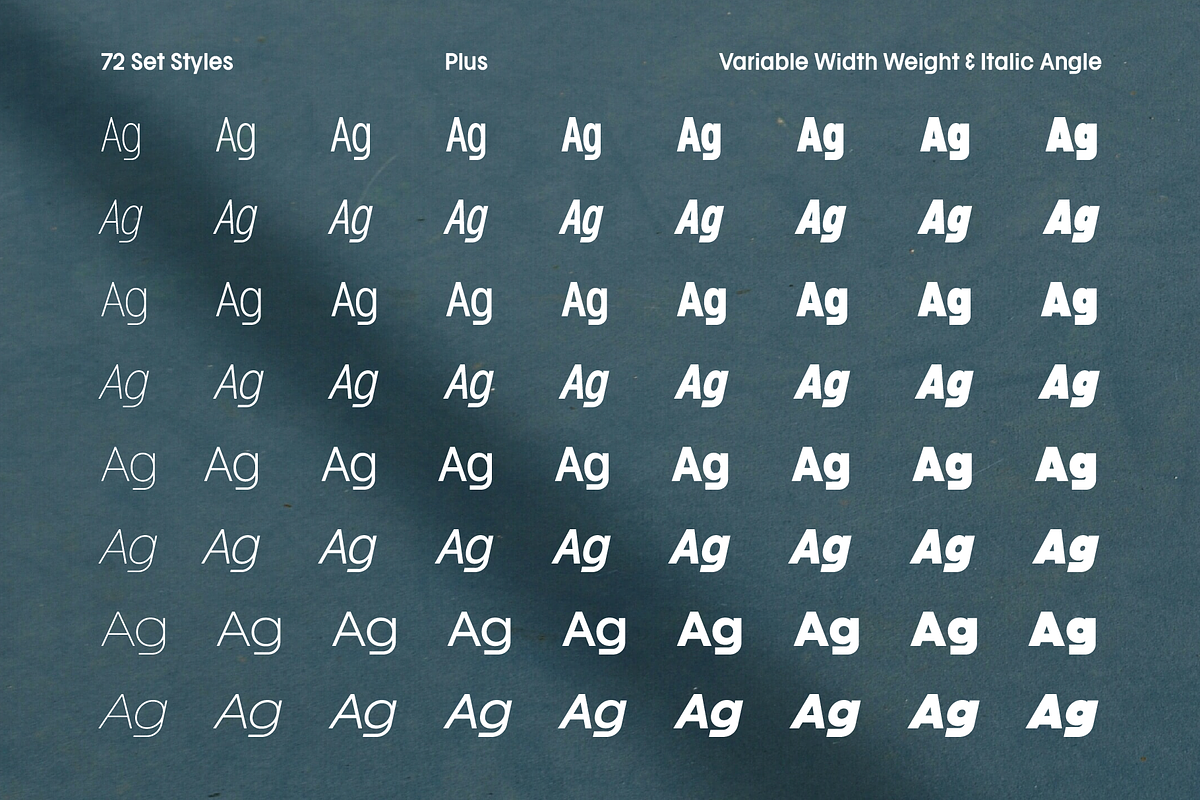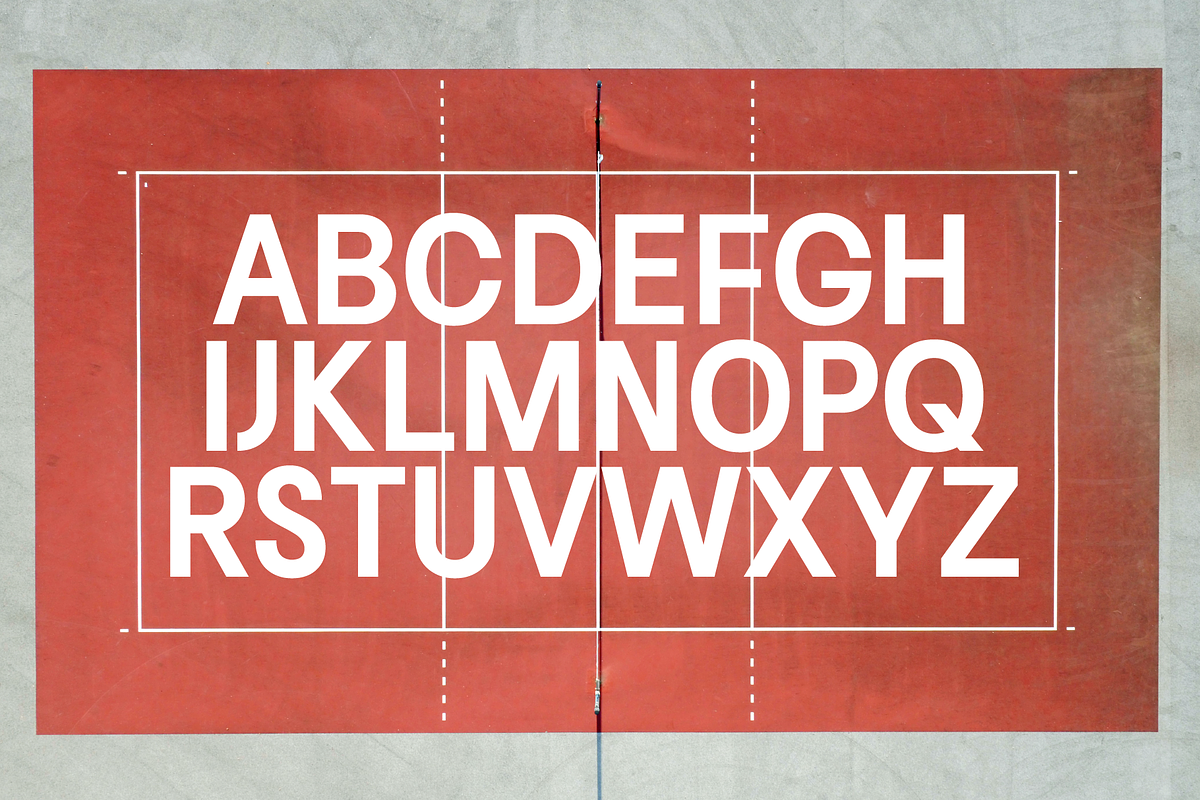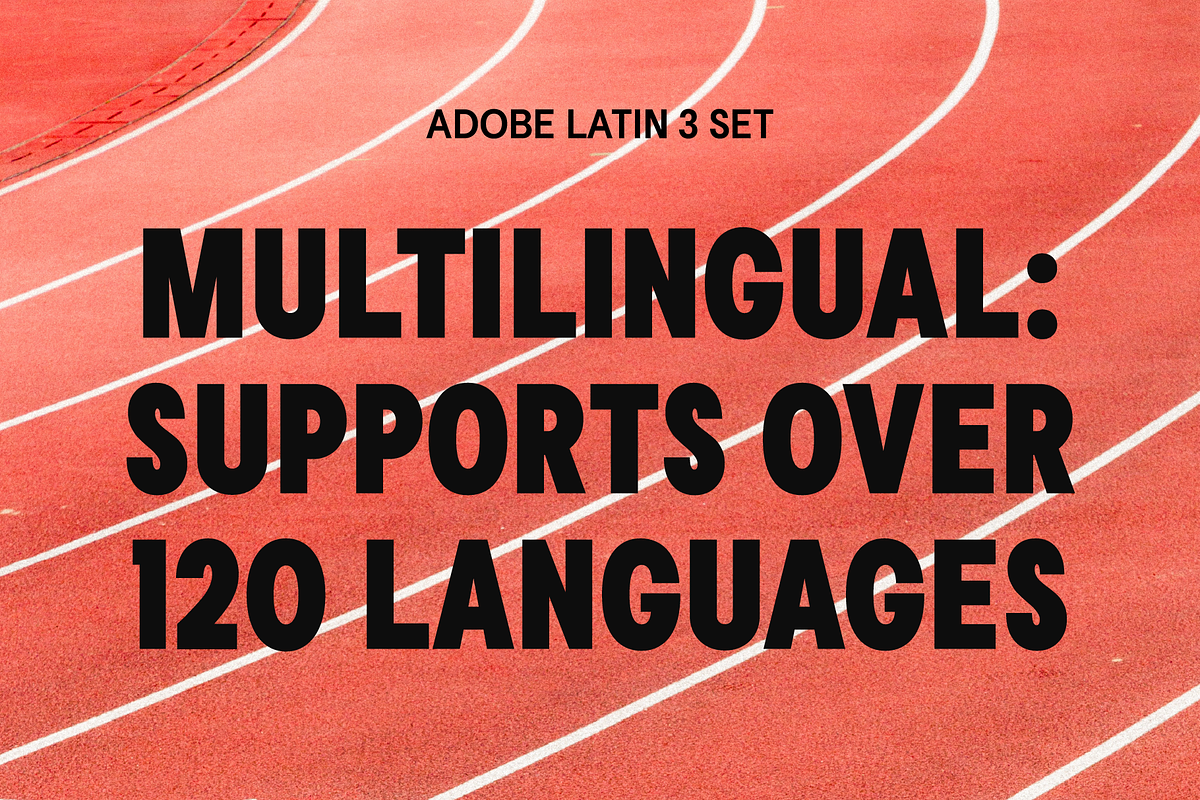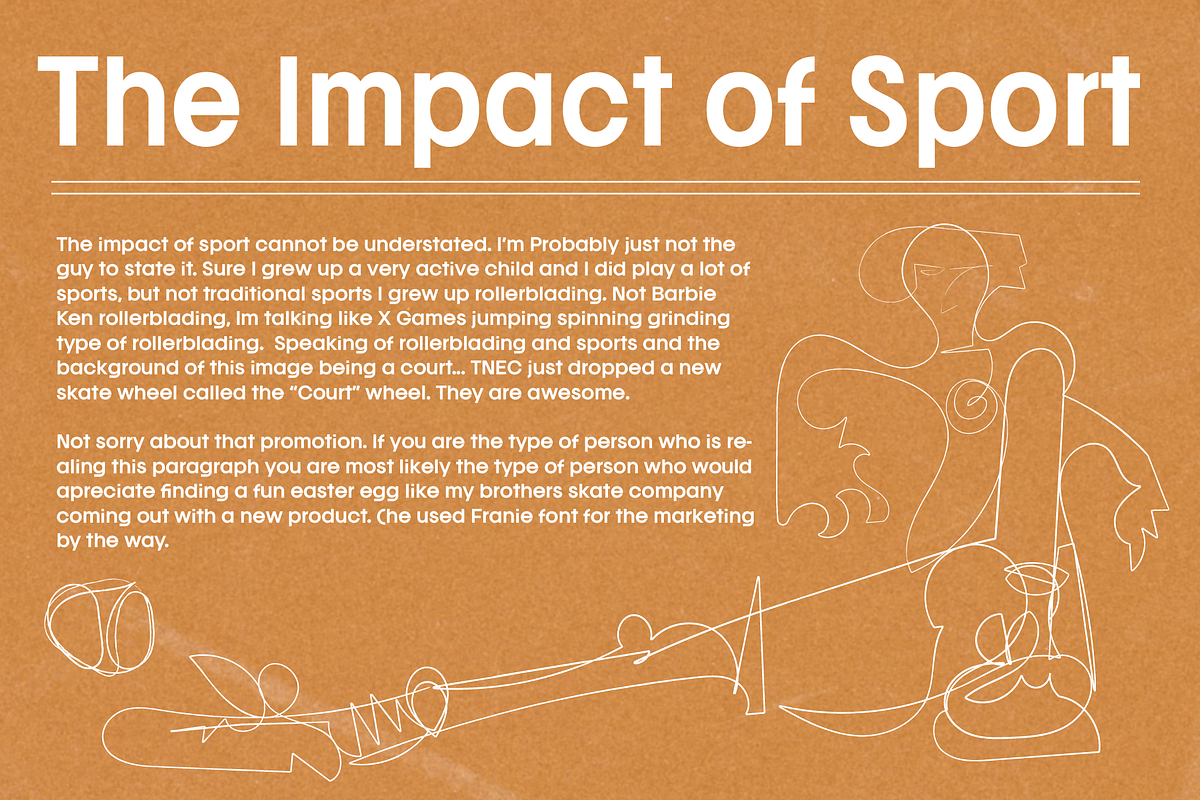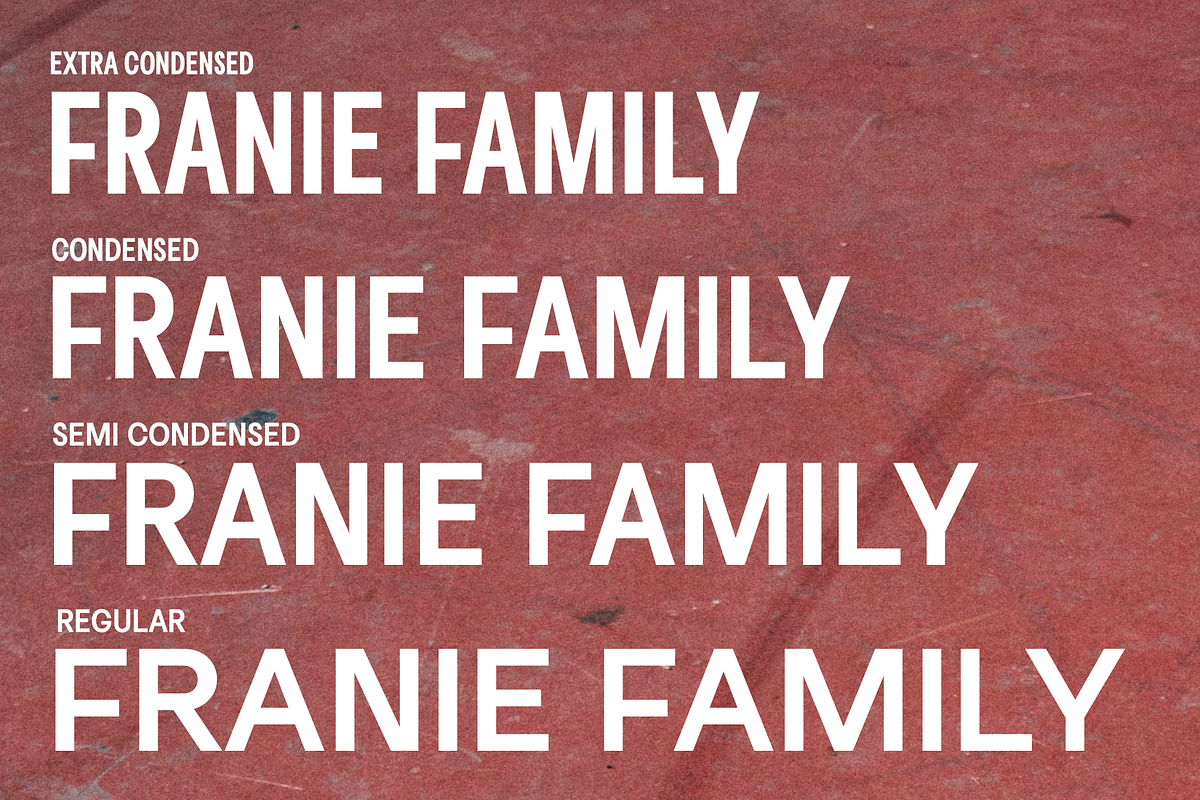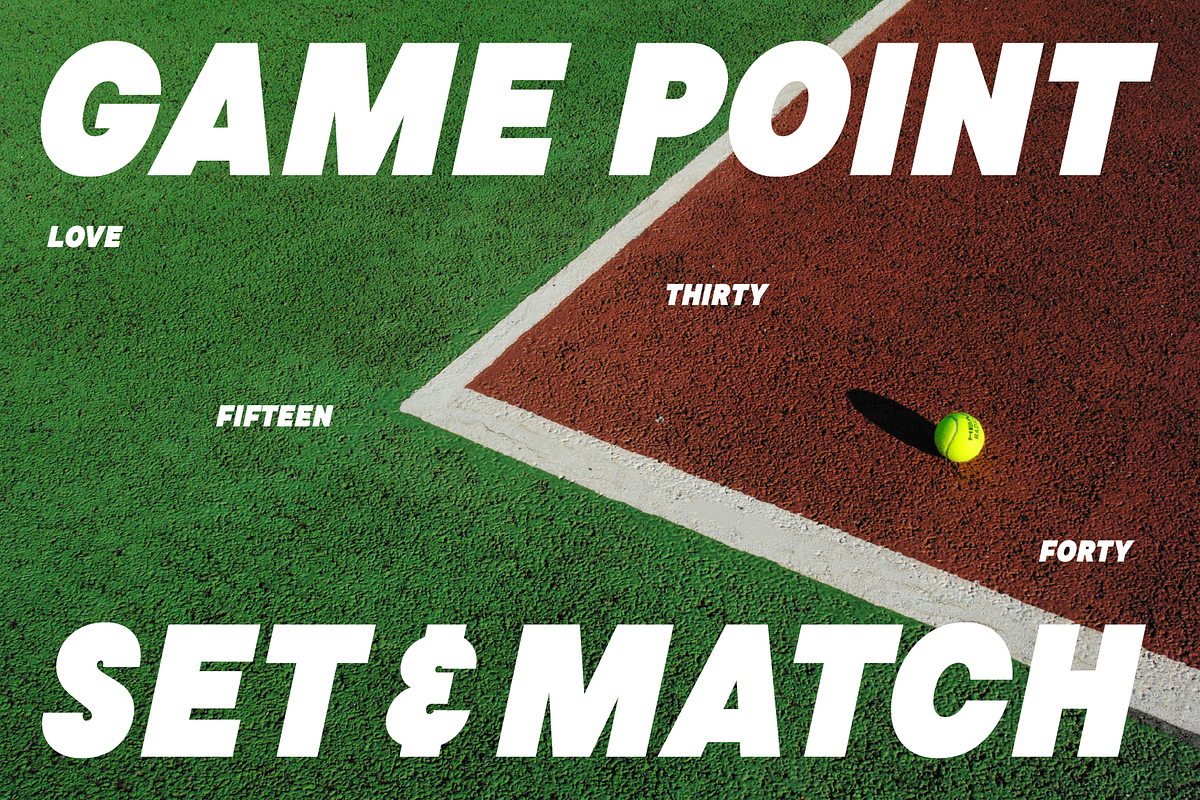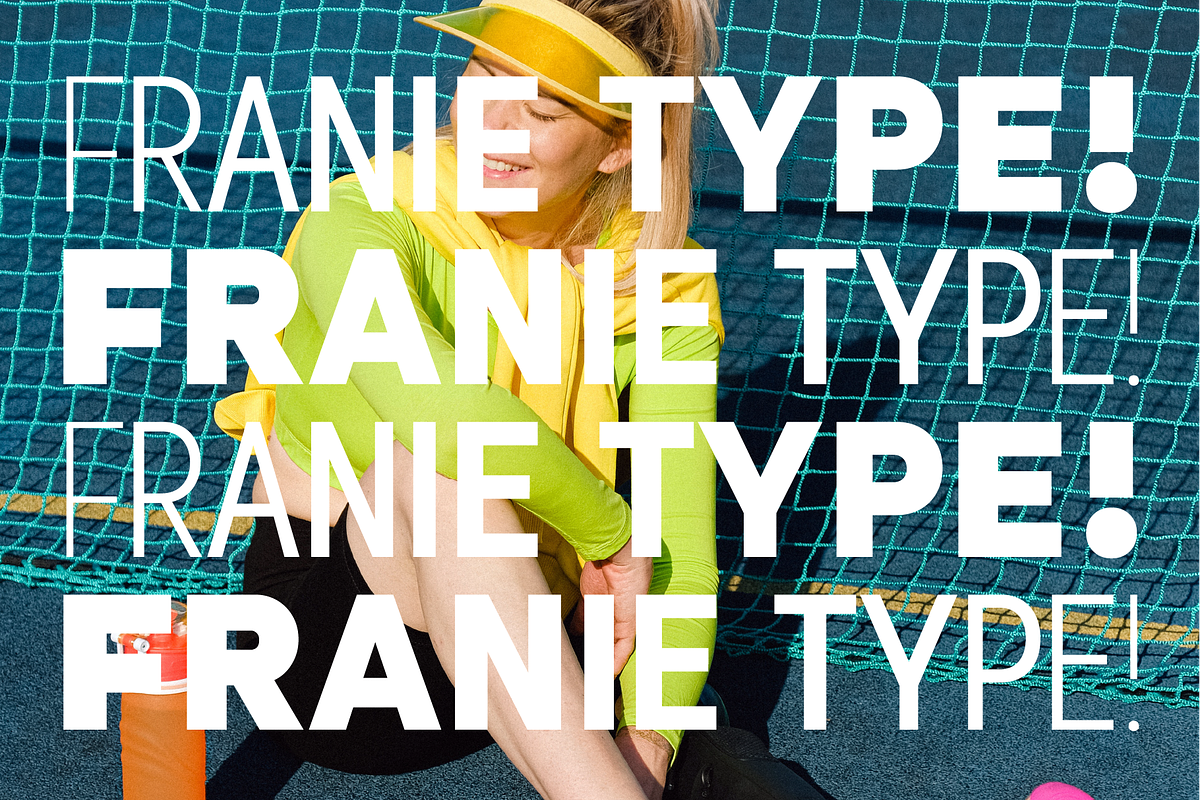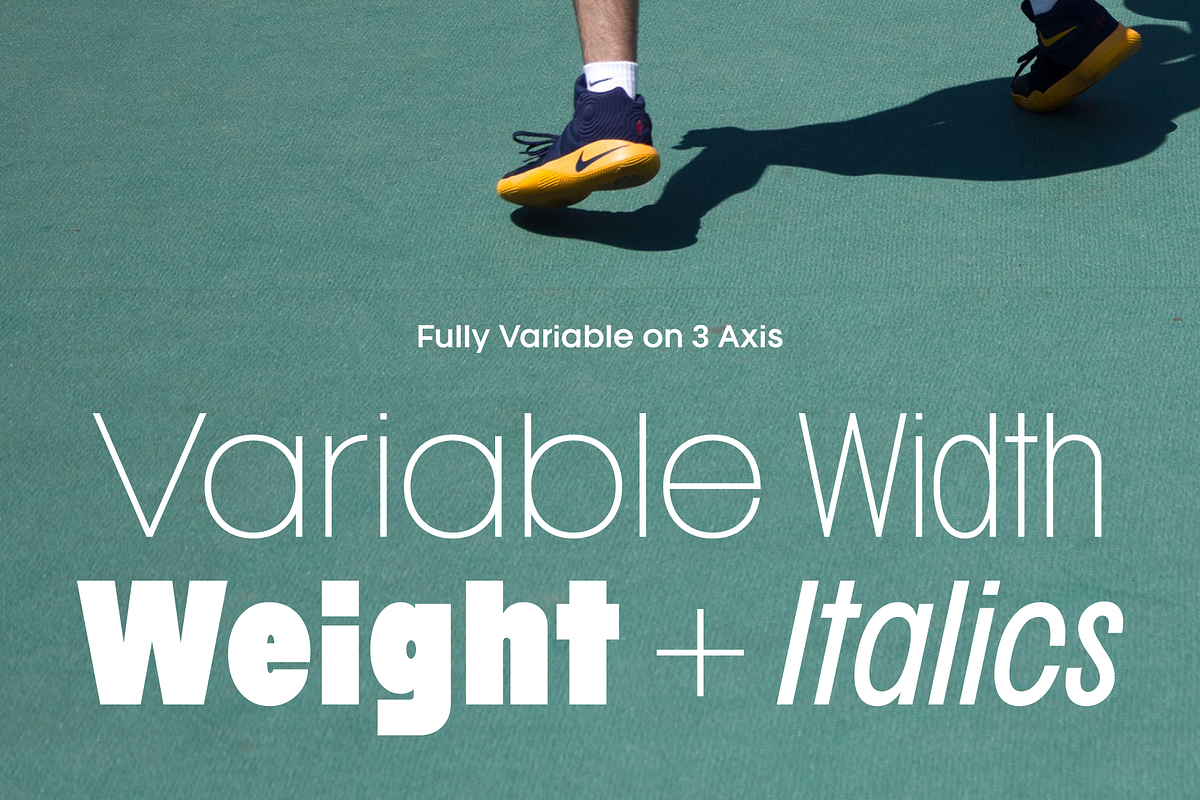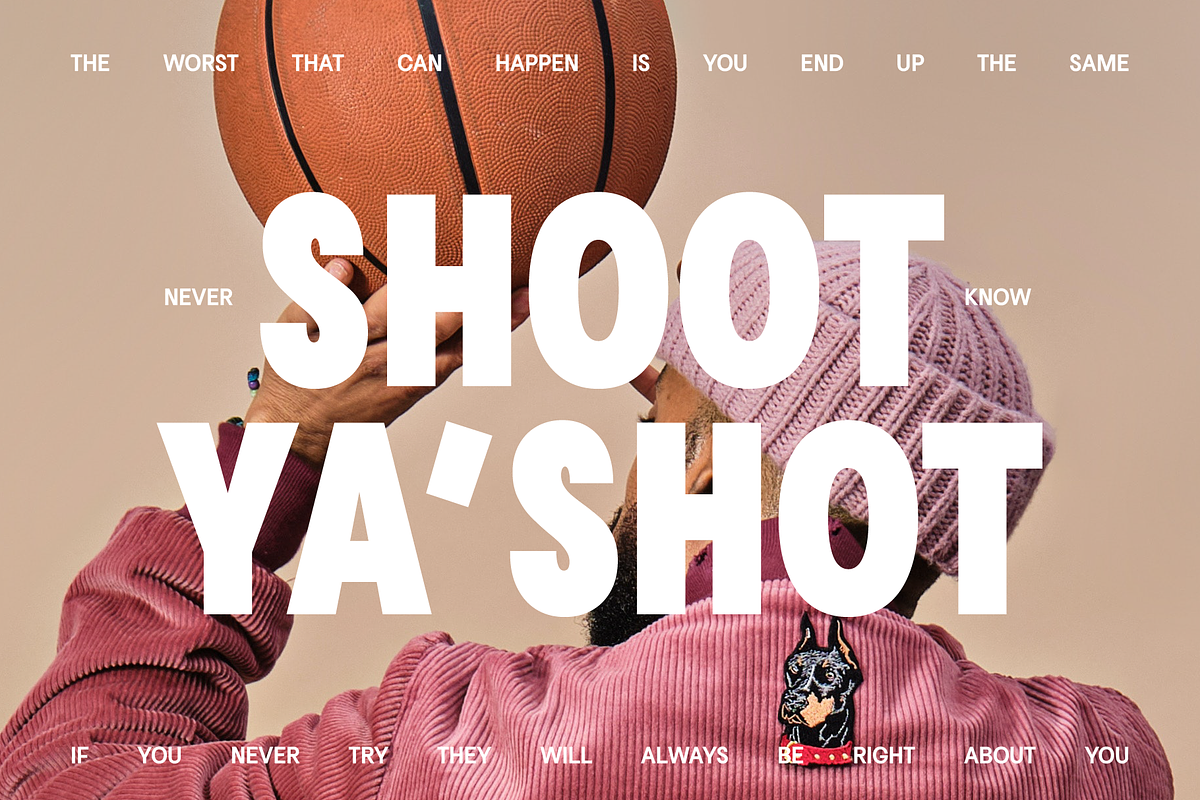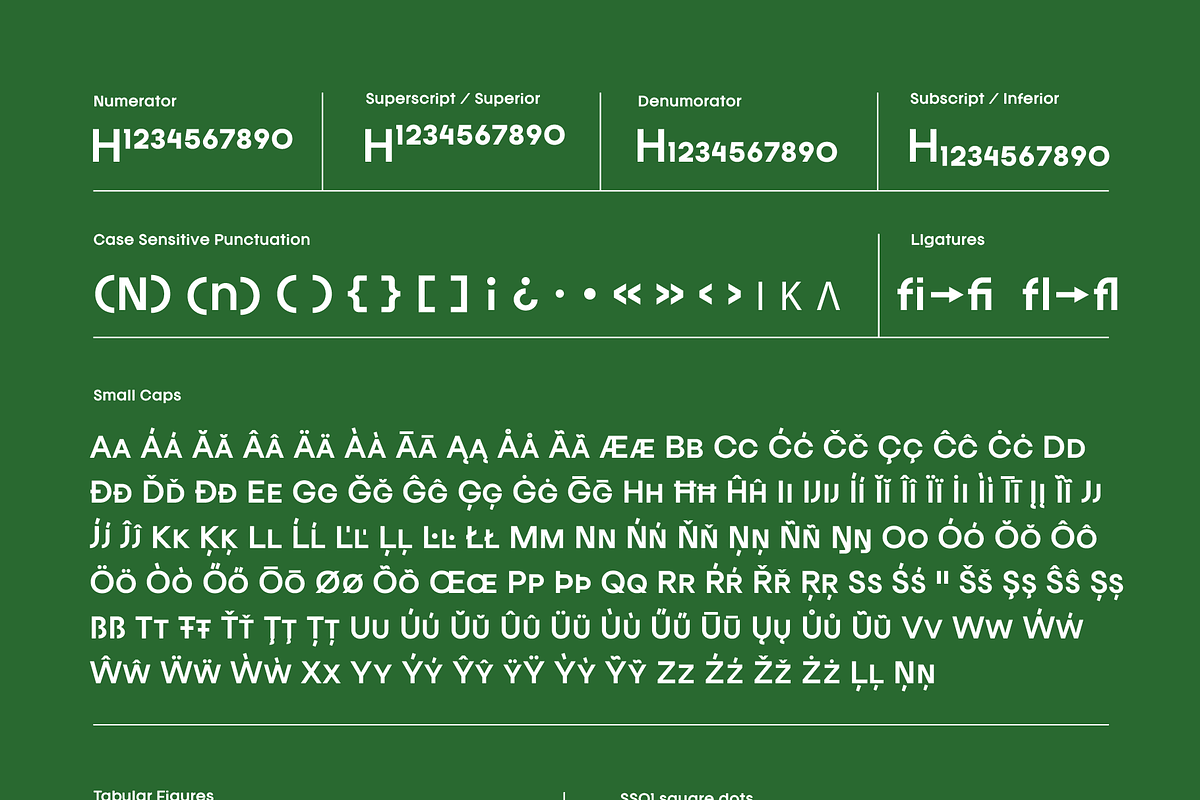
Franie Geometric Sans 72 Styles
Franie is a variable geometric sans serif font family with 72 styles. This modern clean typeface is perfect for contemporary layouts for print, magazines, posters, web, social media, branding logos, or whatever you need to add a little bit of clean sophistication to.
- Alternative Style Set
- Variable Width Weight and Italic Angle